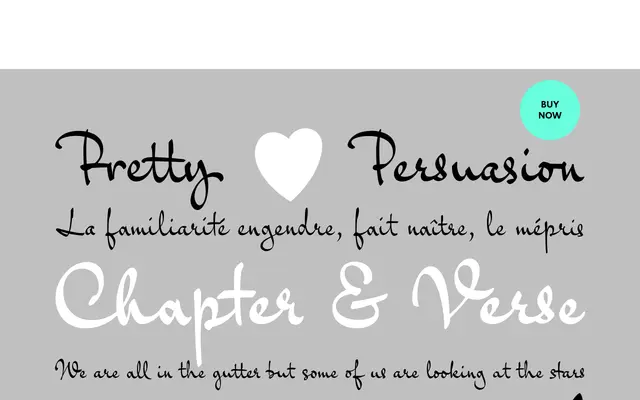
Goskar
G-Type · Nick Cooke
A broad-nib handwritten script in four weights by Nick Cooke, notable for its reversed stress and extensive OpenType programming that produces authentic character variation in running text.
Based on Nick Cooke's own handwriting with a fountain pen held at an unconventional angle, the reversed stress gives Goskar an unusual energy distinct from most calligraphic scripts. Four weights from Light to Black are available as standard OpenType fonts, with a single-axis variable font bundled free with the family pack for intermediate weight control. The character set is unusually generous, including small caps, arrows, emoticons, underlines, fractions and a broad range of contextual alternates and ligatures that sustain the impression of genuine handwritten flow.
A handwritten script typeface based directly on the designer's own broad-nib fountain pen handwriting, distinguished by a reversed stress resulting from holding the pen at an unconventional angle.